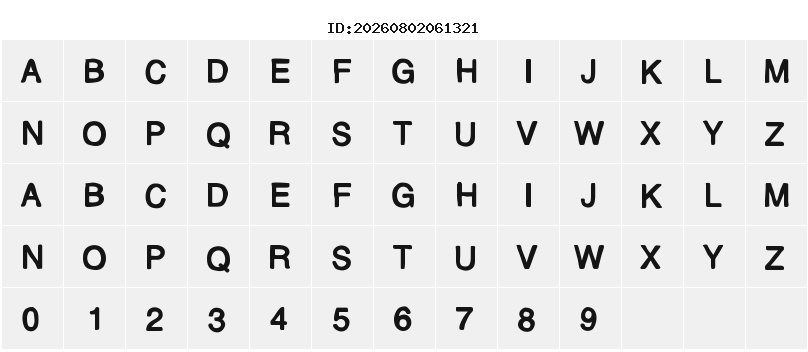
MJletter2 Preview
• Font Name: MJletter2
• Full Font Name: MJletter2
About MJletter2.ttf
MJletter2.ttf is a modern, elegant sans-serif font designed for ultimate readability and visual harmony. Perfect for branding, headlines, web design, and print materials.